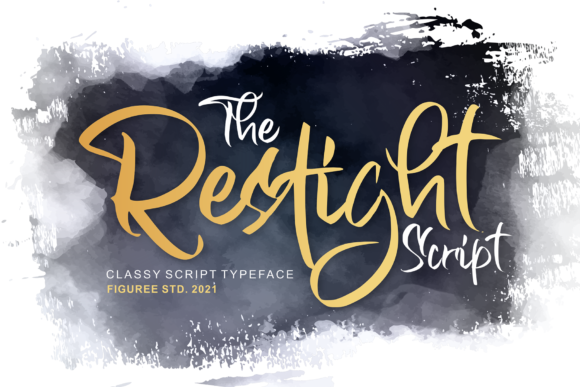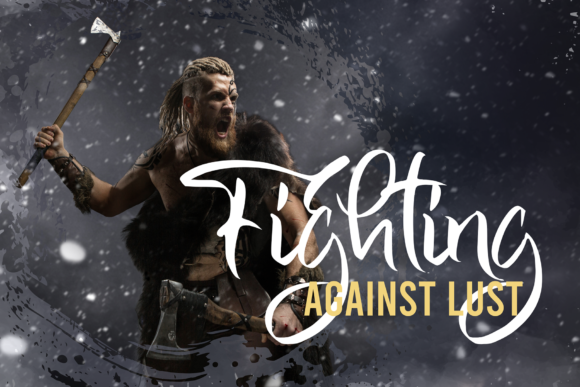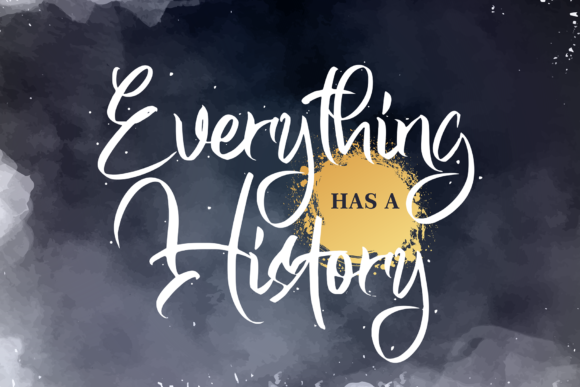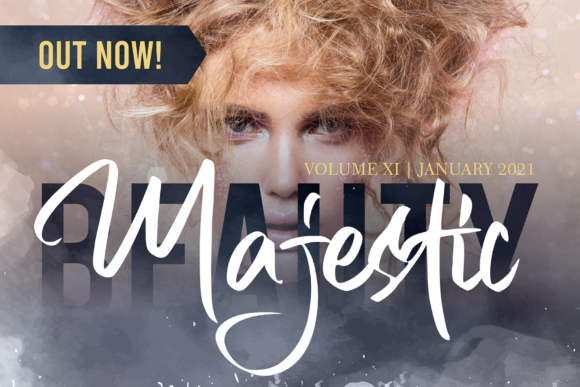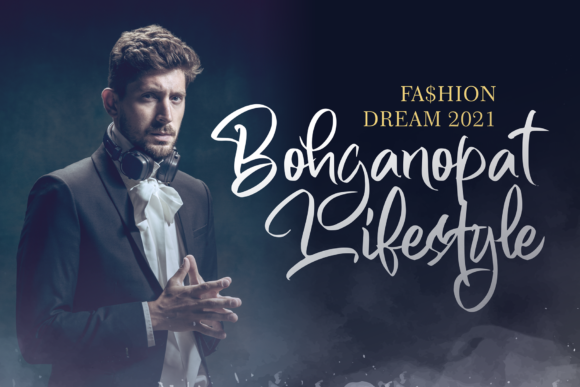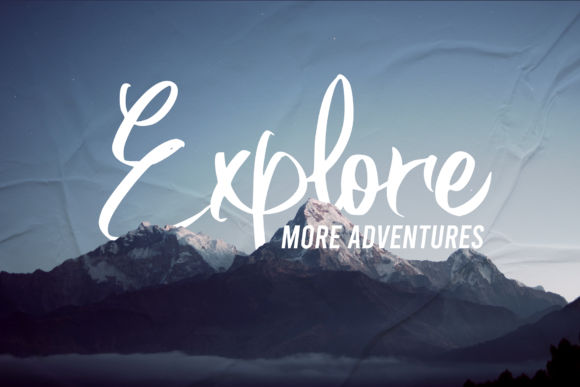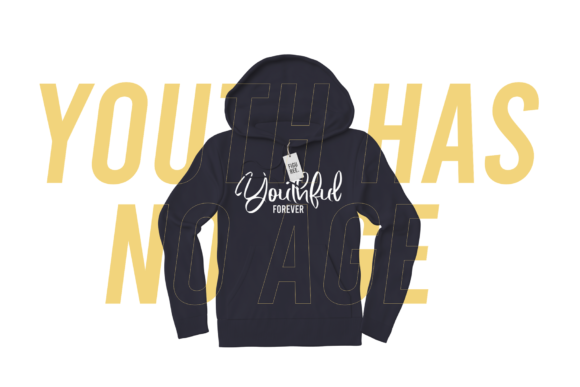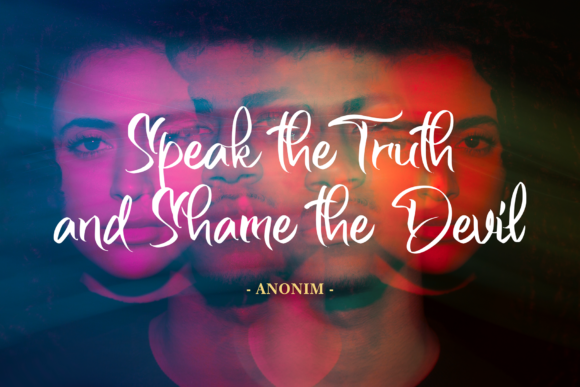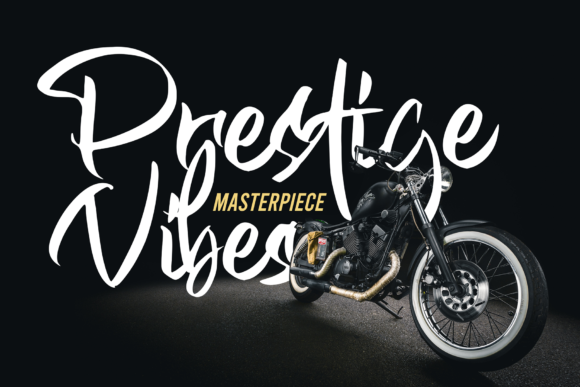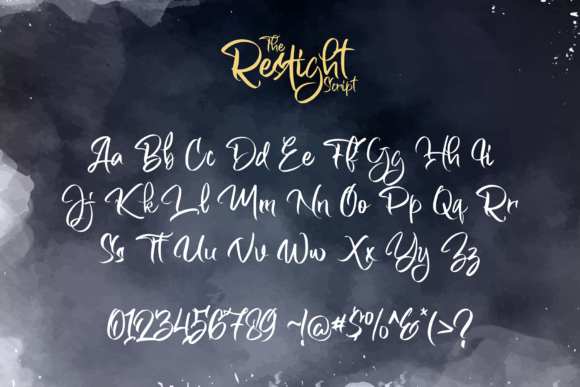
The Restight Script Font
About The Restight Script Font
The Restight Script is a beautiful brushed handwritten font. Whether you’re looking for fonts for Instagram or calligraphy scripts for DIY projects, this font will turn any creative idea into a true piece of art!